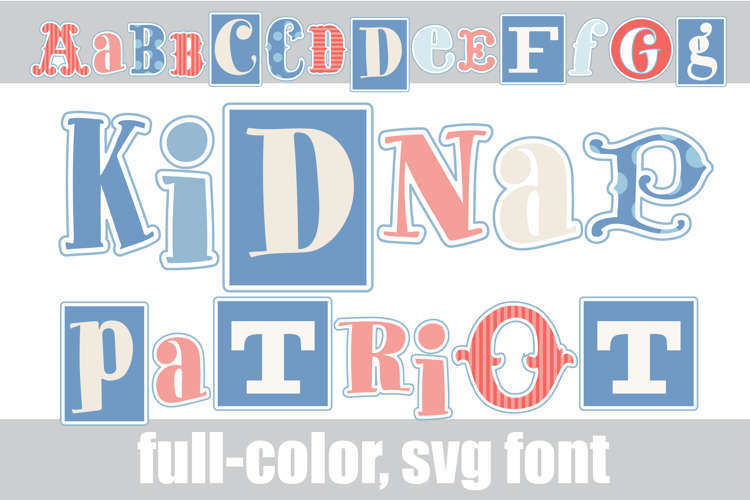
Kidnap Patriot Too Color Font
This full-color, whimsical font is in a pastel patriotic color palette that looks a lot like a ransom note. There is an alt case of additional colors of each letter that you can access through your system's character map.